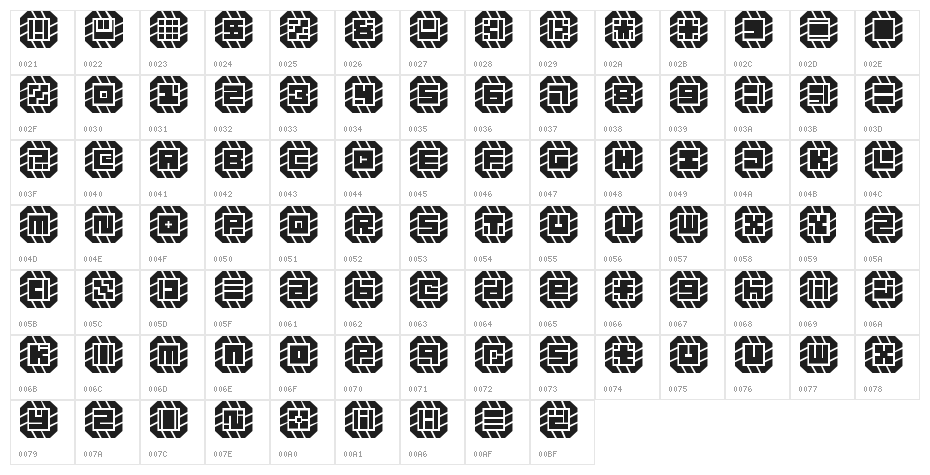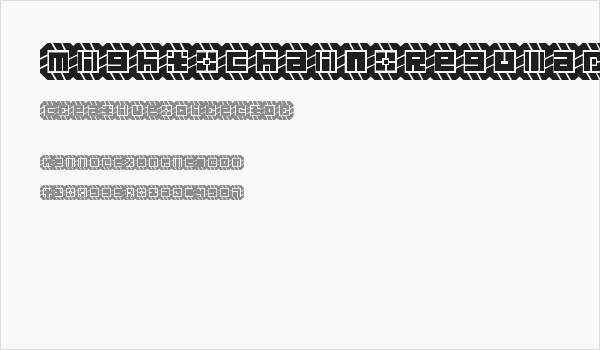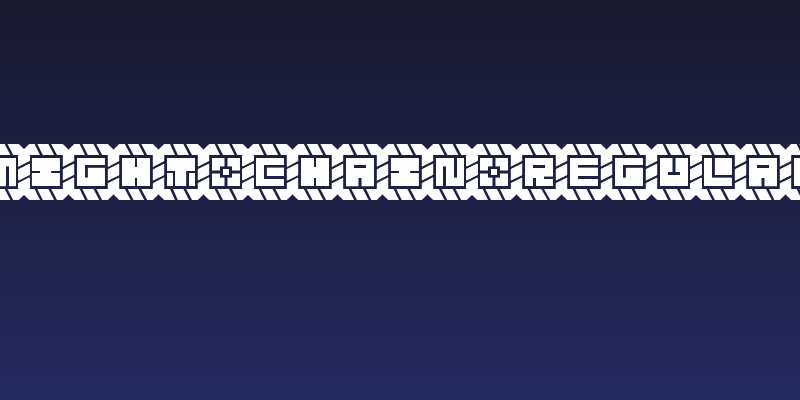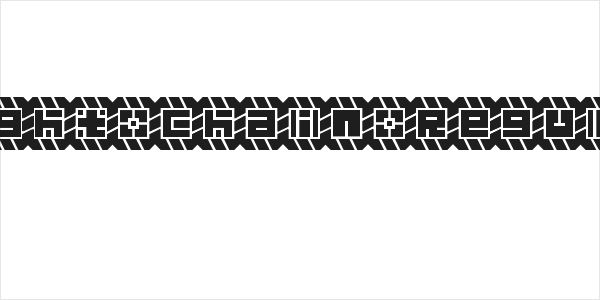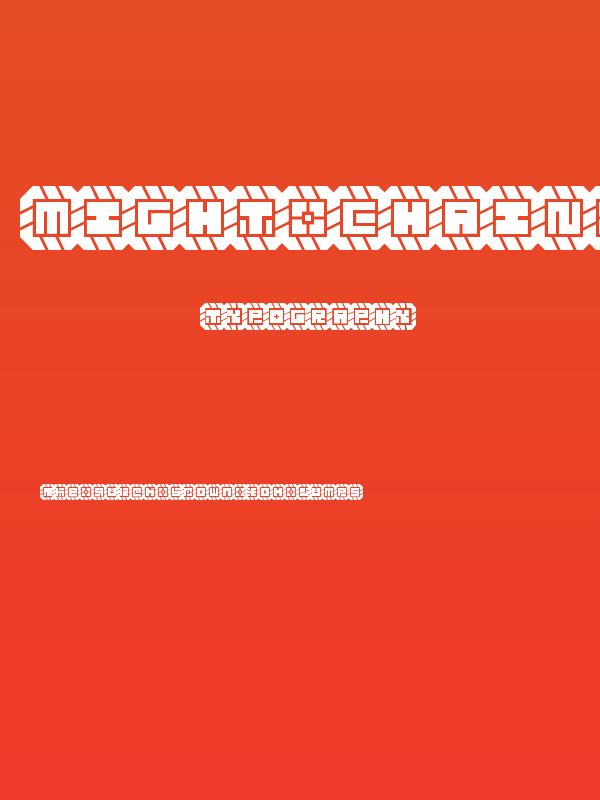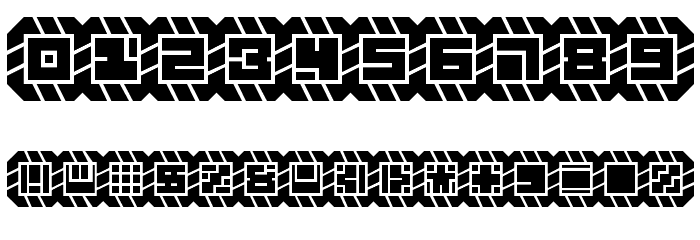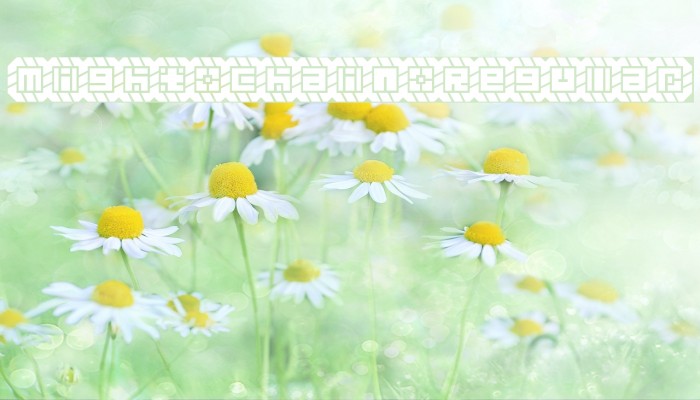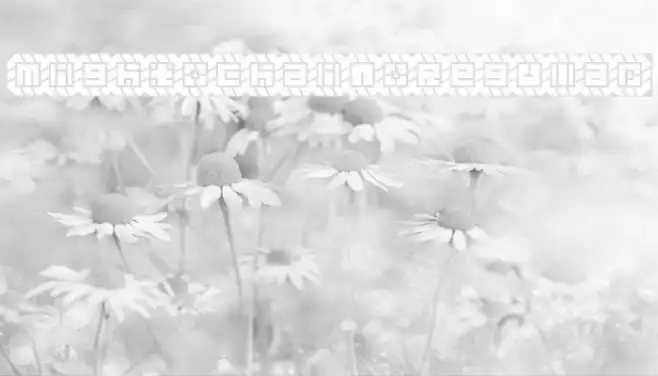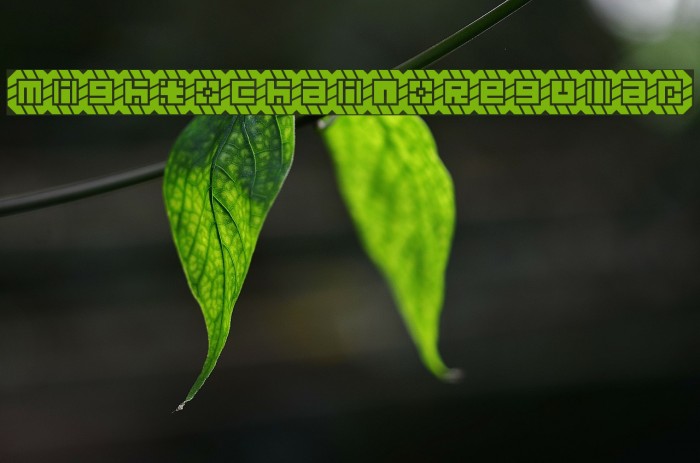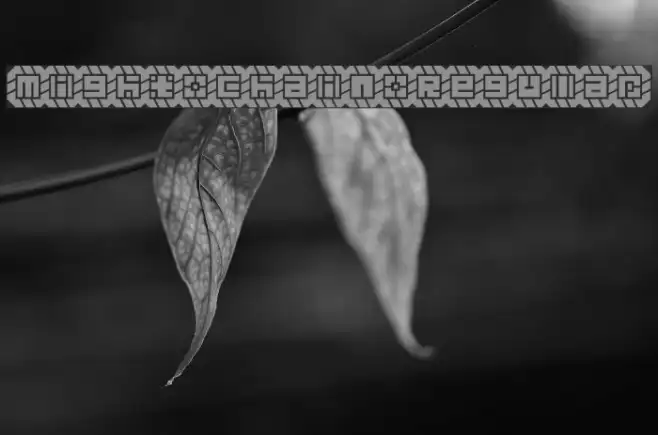
Might Chain Regular Font
Might Chain Regular Description
This font features a bold, geometric design with a distinct chain-like pattern. Each character is constructed with thick, interconnected lines that create a sense of movement and strength. The letters and numbers are highly stylized, with angular edges and a consistent blocky appearance. The font's unique structure makes it stand out, offering a modern and industrial aesthetic. It is particularly eye-catching due to its intricate design, which combines both decorative and functional elements. The overall look is both futuristic and mechanical, making it suitable for projects that require a strong visual impact.
| Overall Style | Modern, Industrial |
| Proposed Projects | Ideal for branding, posters, video game titles, and any project needing a strong, industrial look. |